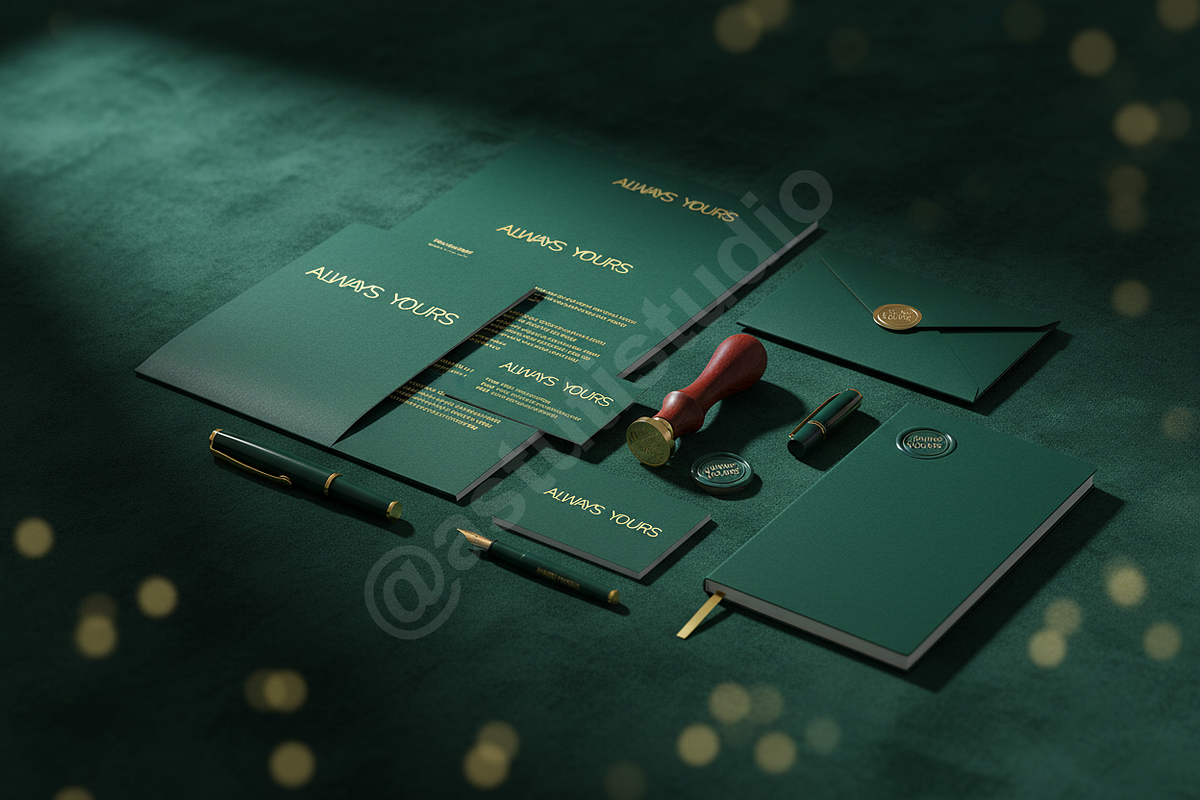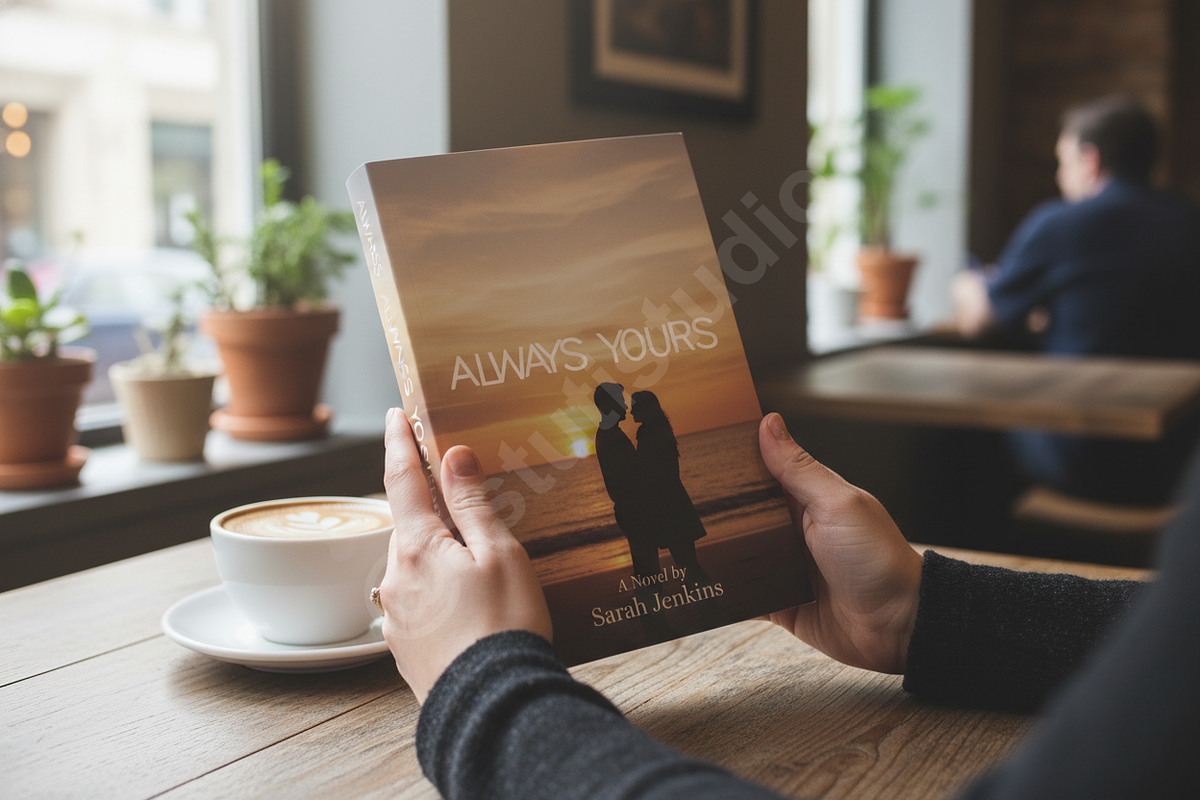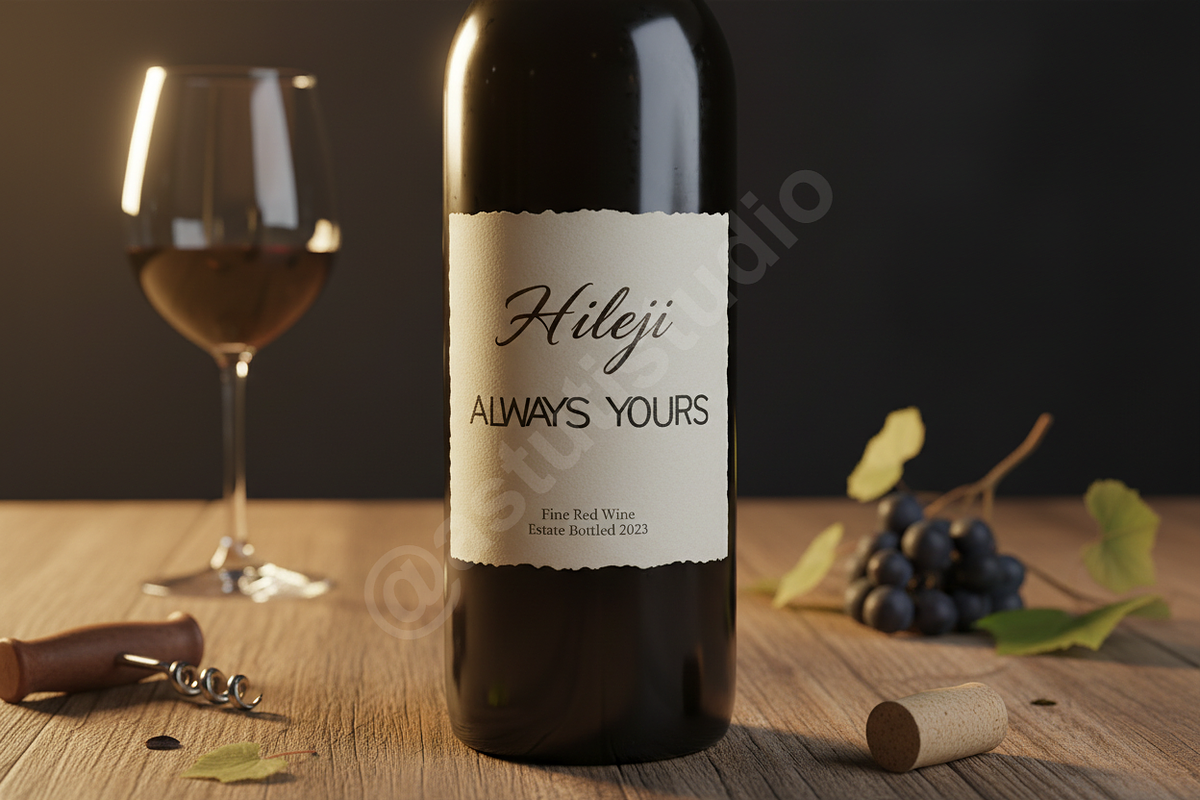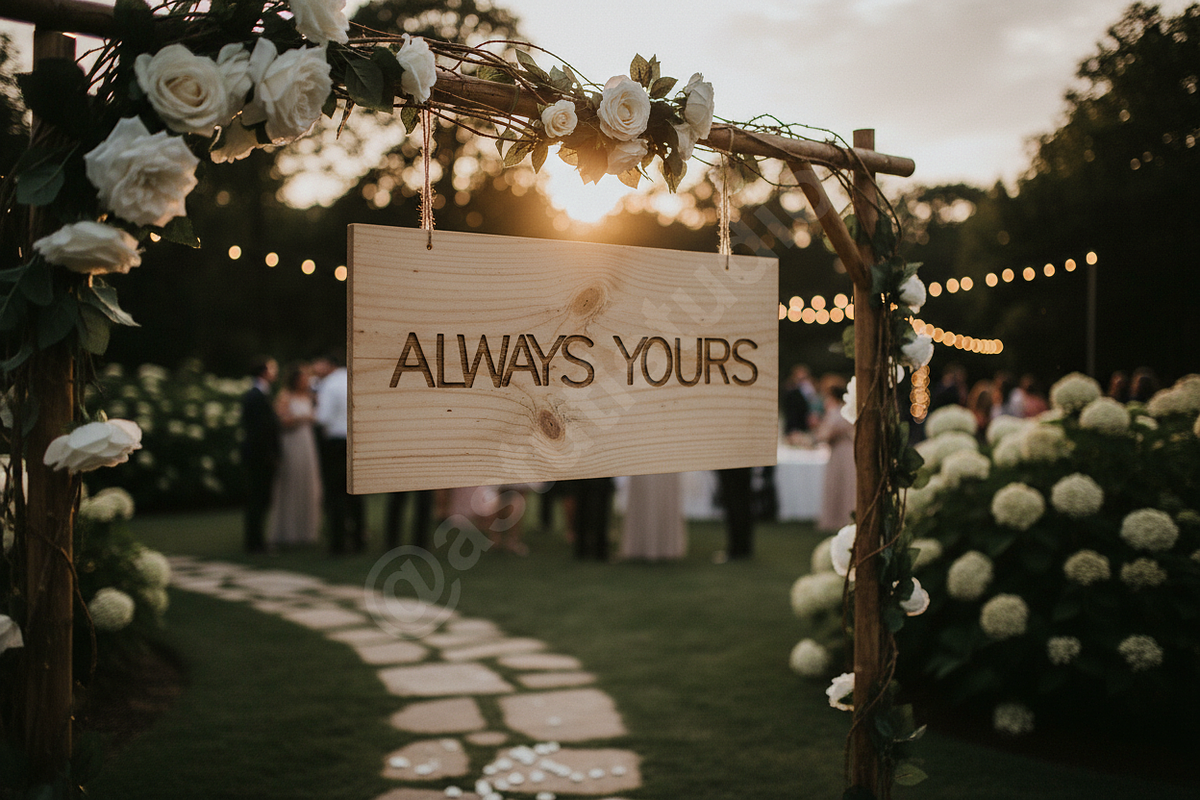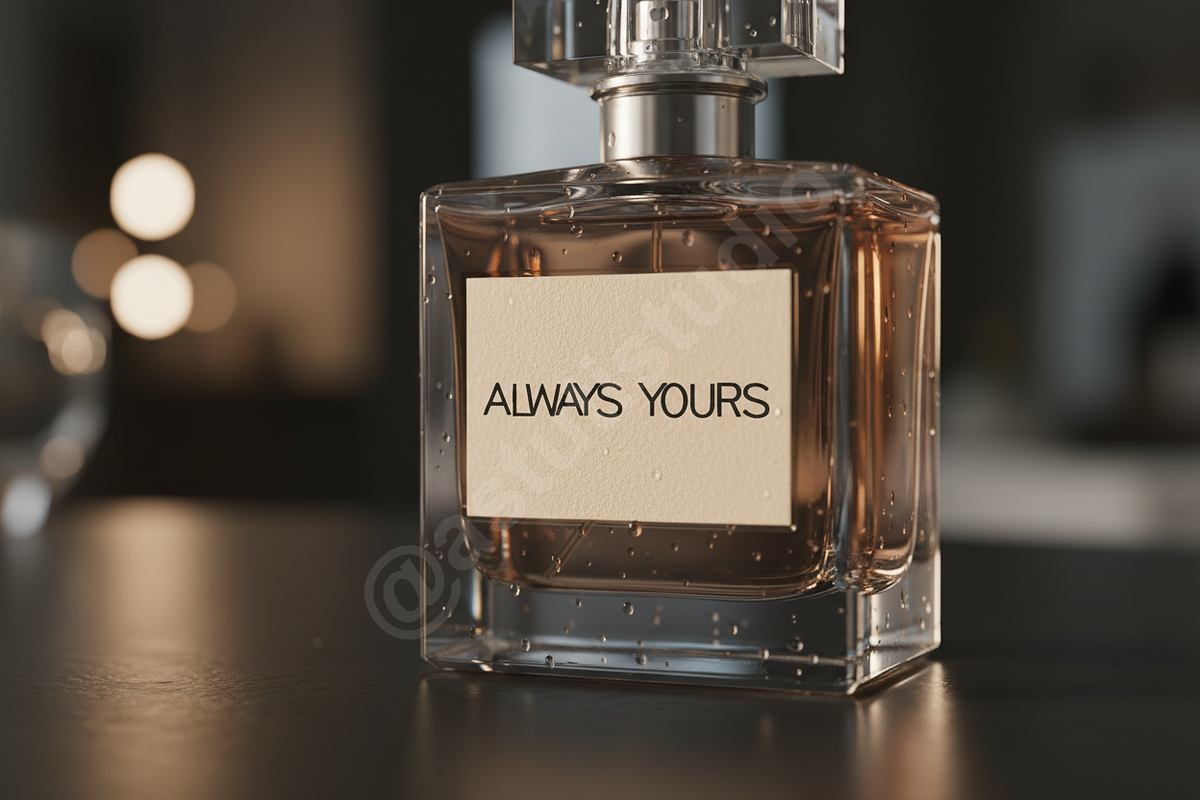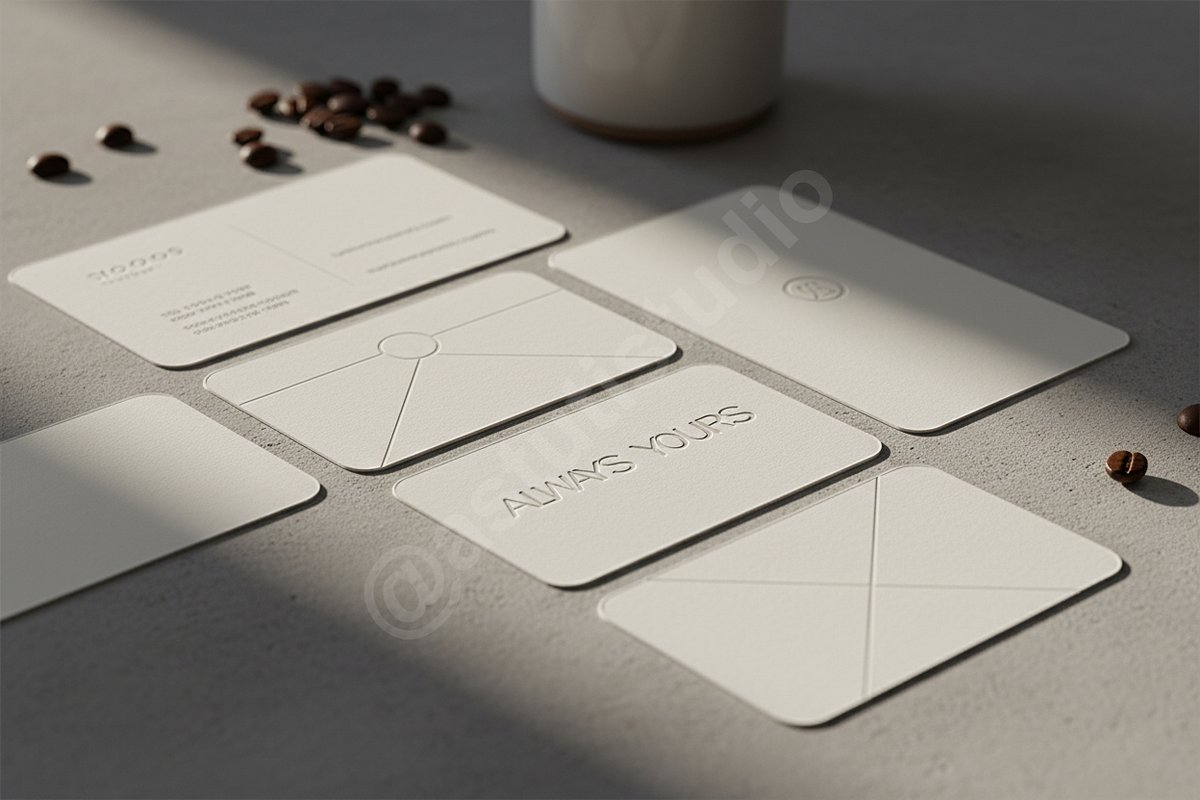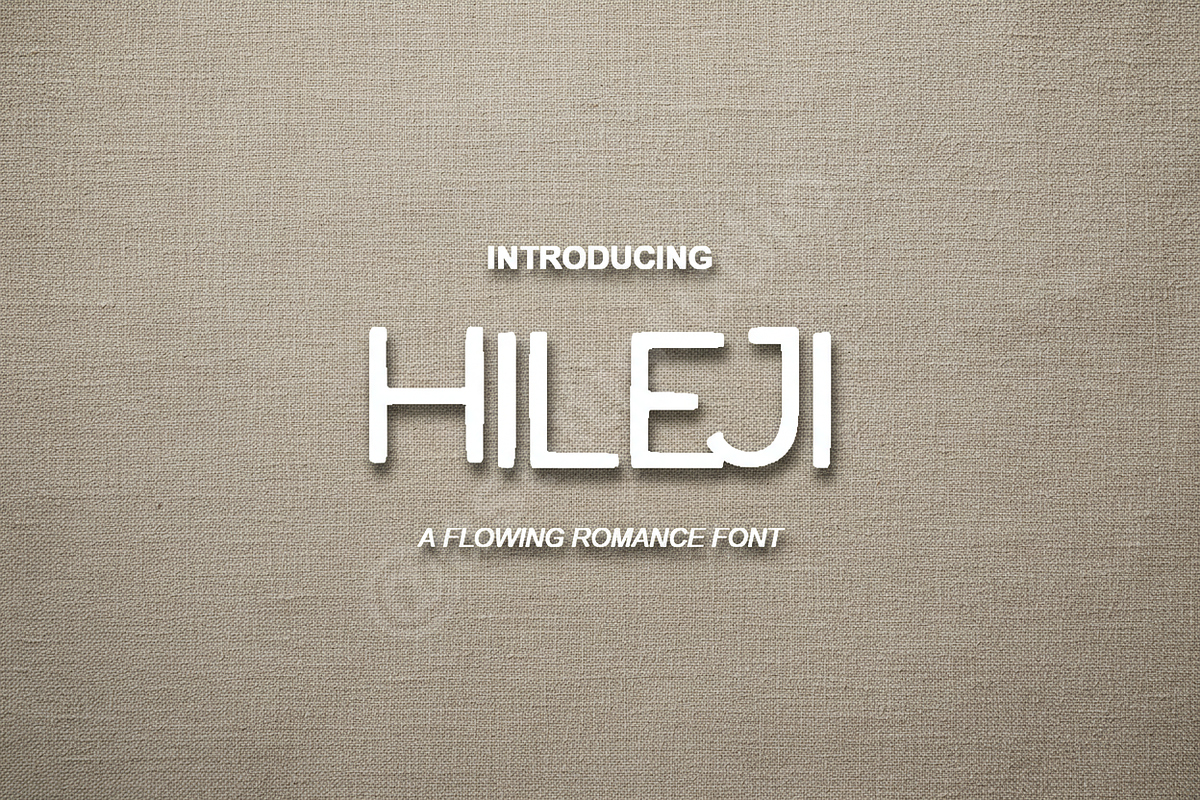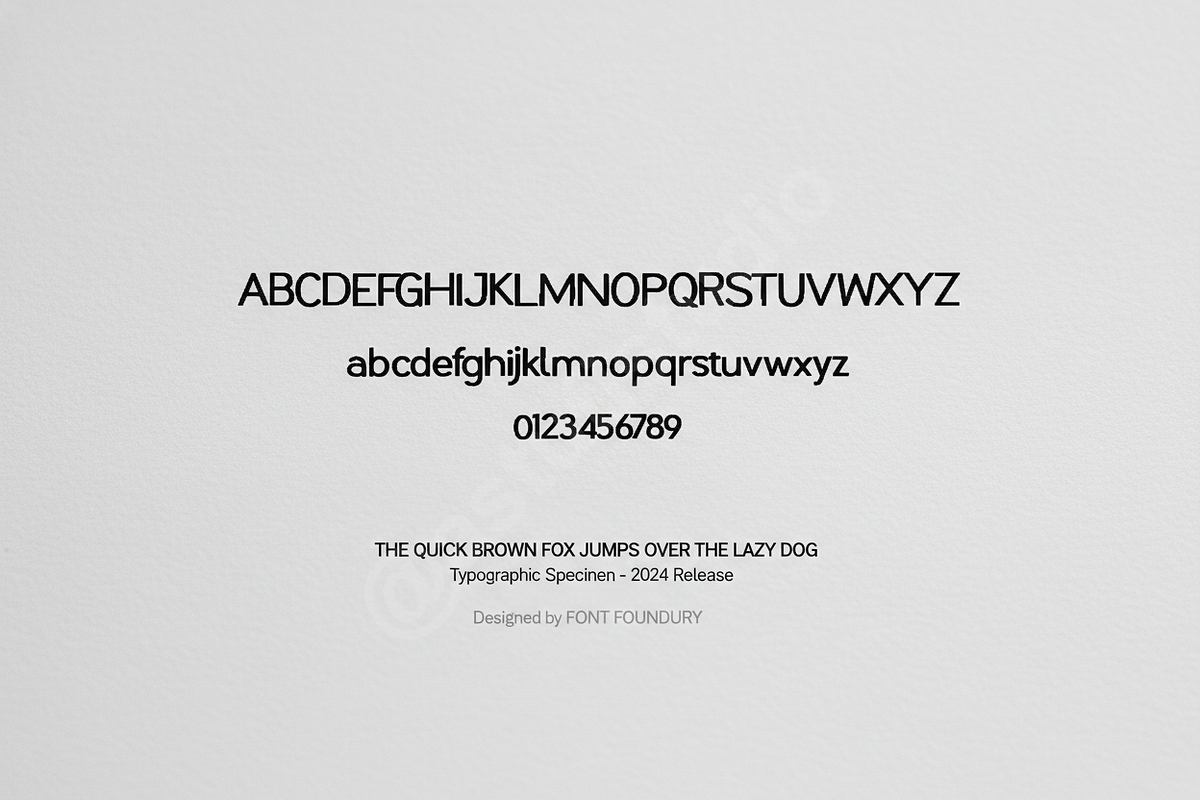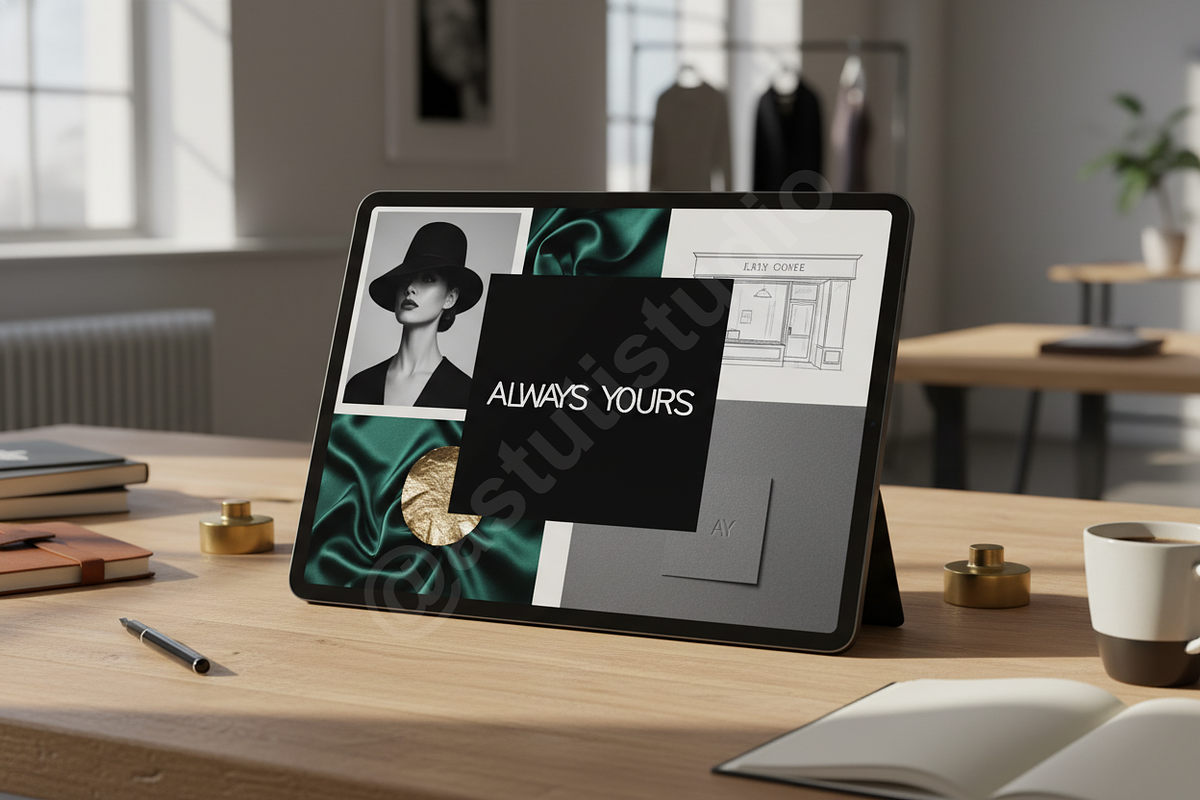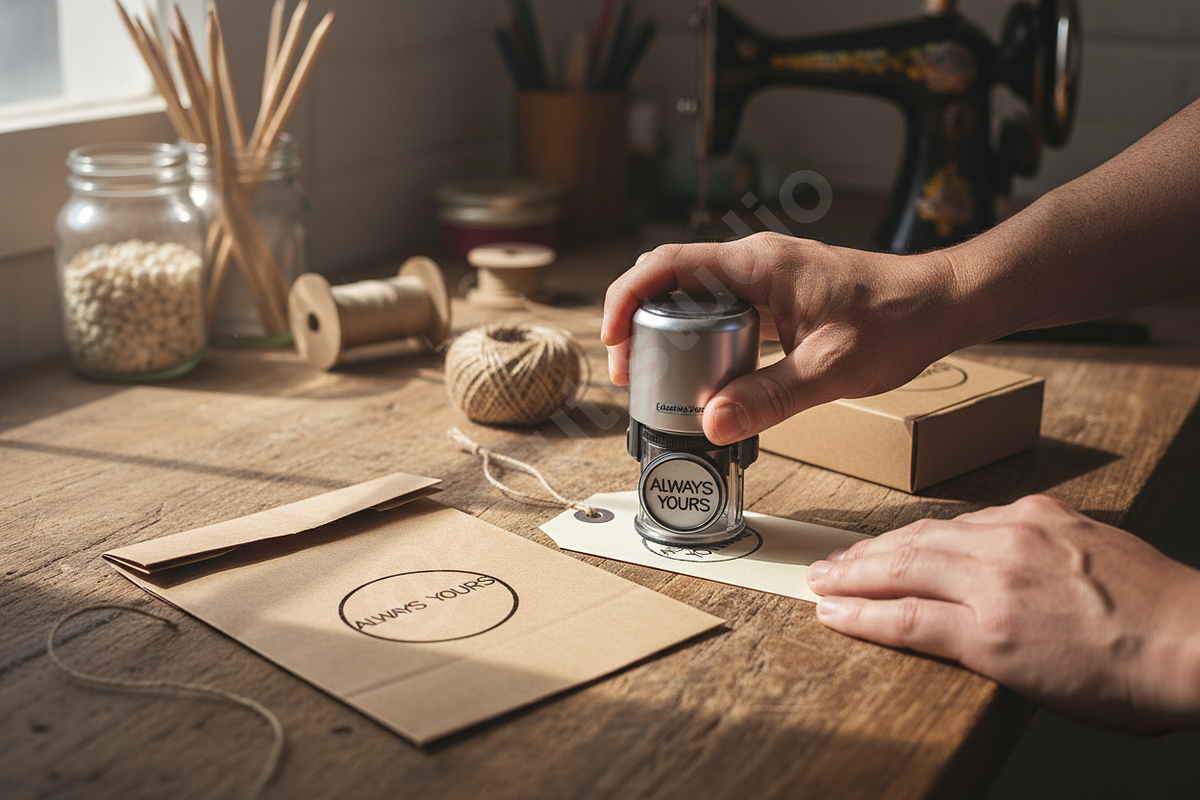
Hileji | Elegant Modern Serif Typefa
HILEJI ELEGANT MODERN SERIF
Introduction Hileji is a refined serif typeface meticulously crafted for the modern aesthetic. It embodies sophistication and timelessness, making it an ideal choice for high-end branding, luxury editorial design, and impactful social media content. Each character is balanced to provide a seamless reading experience while maintaining a distinct, premium personality.
- Sophisticated high-contrast letterforms
- Clean lines and professional spacing
- Advanced OpenType features with unique ligatures
- Stylistic alternates for custom layouts